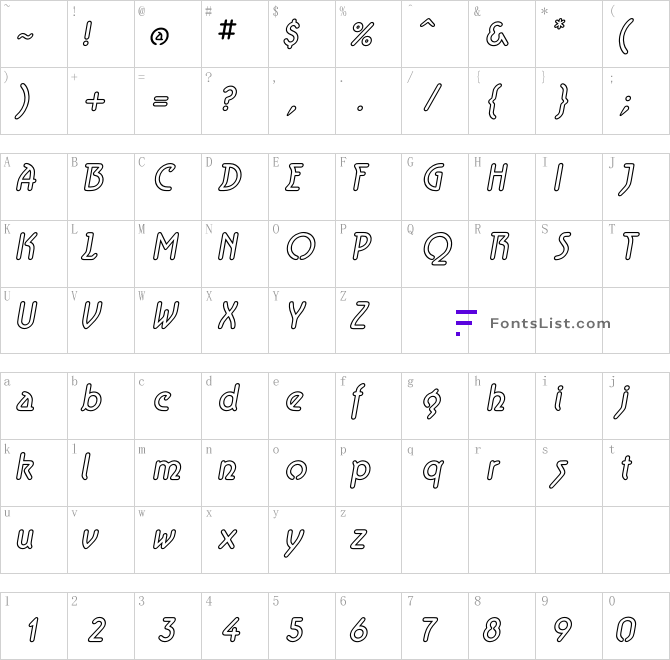
- Font Name:Aerolite Sky Italic
Aerolite-Sky-Italic.otf is a very beautiful artistic font, Aerolite-Sky-Italic.otf is widely used in the design and printing of various books and pictures,Aerolite-Sky-Italic.otf has a strong visual impact,Aerolite-Sky-Italic.otf is a commonly used font in newspapers, magazines and books, and is used in posters, e-commerce Poster design, store design, logo design, font design and other fields.Aerolite-Sky-Italic.